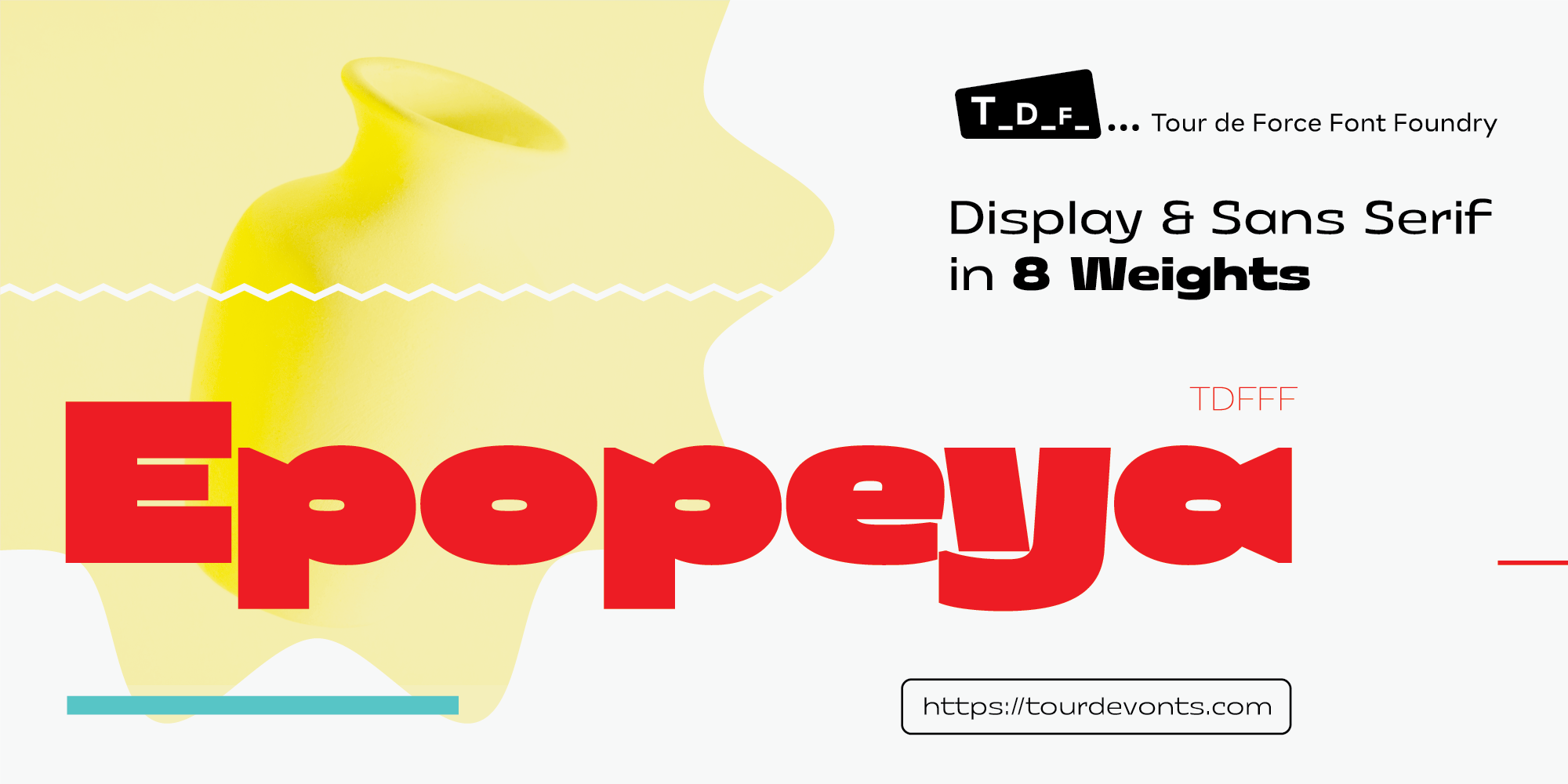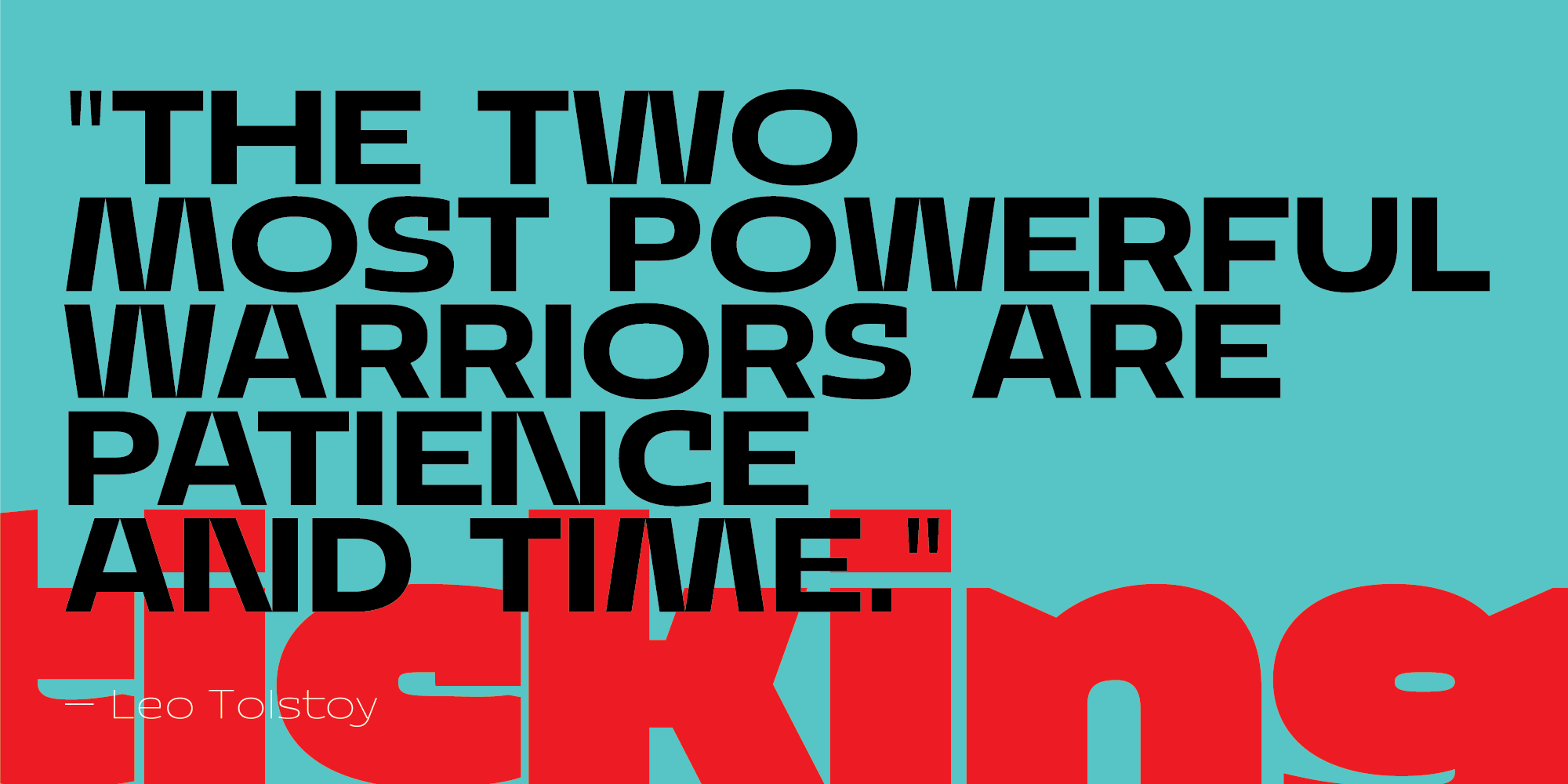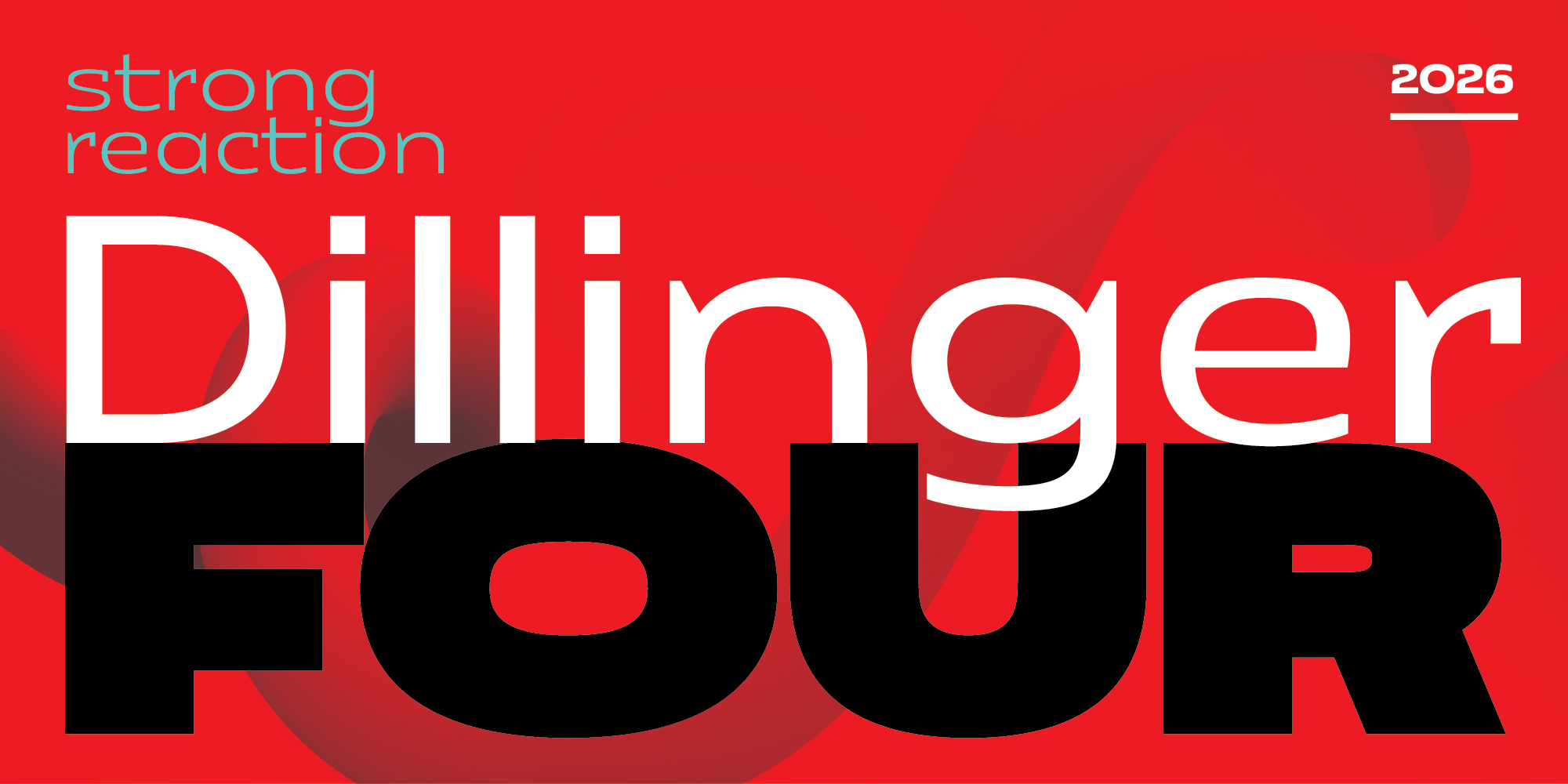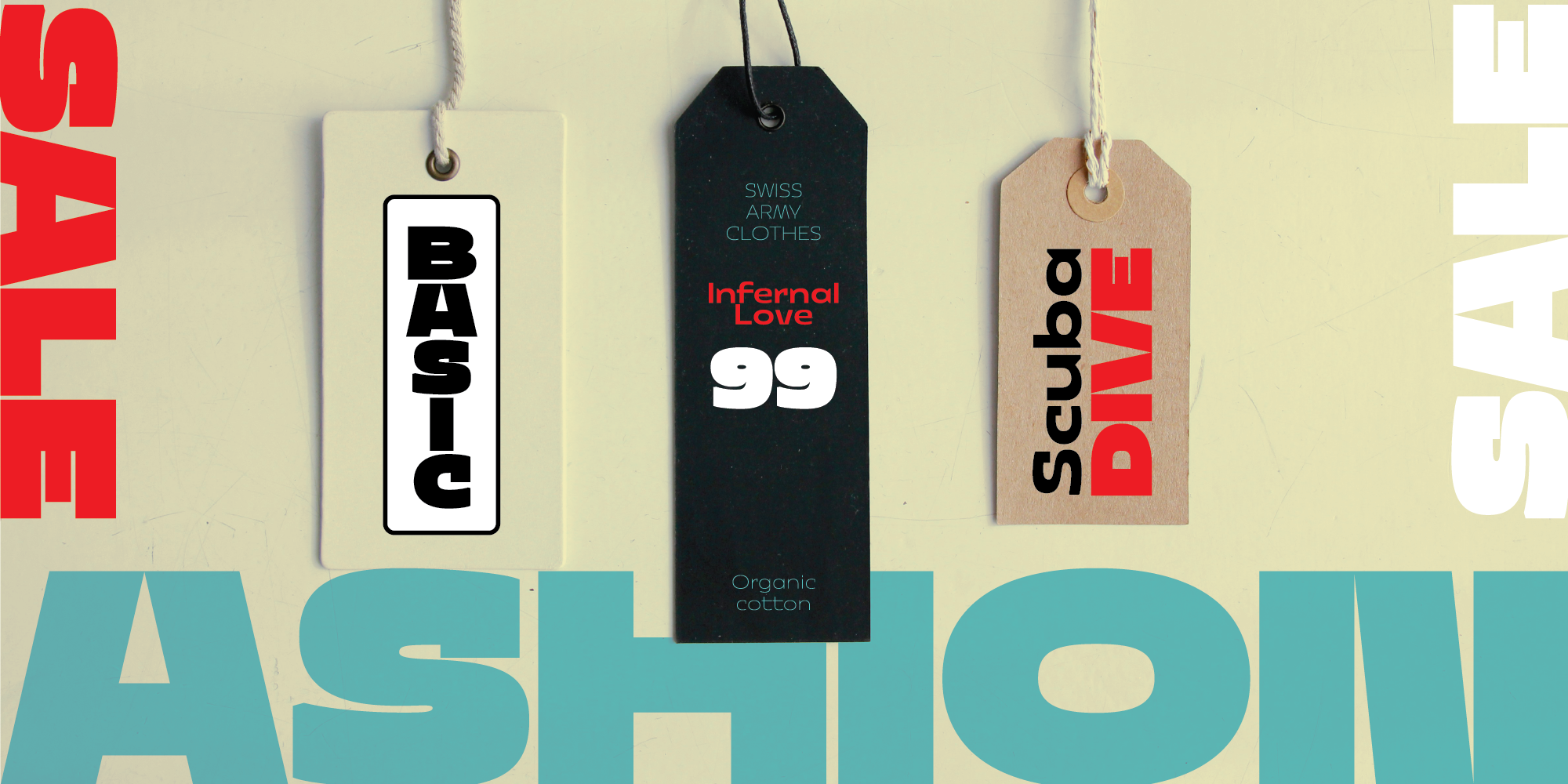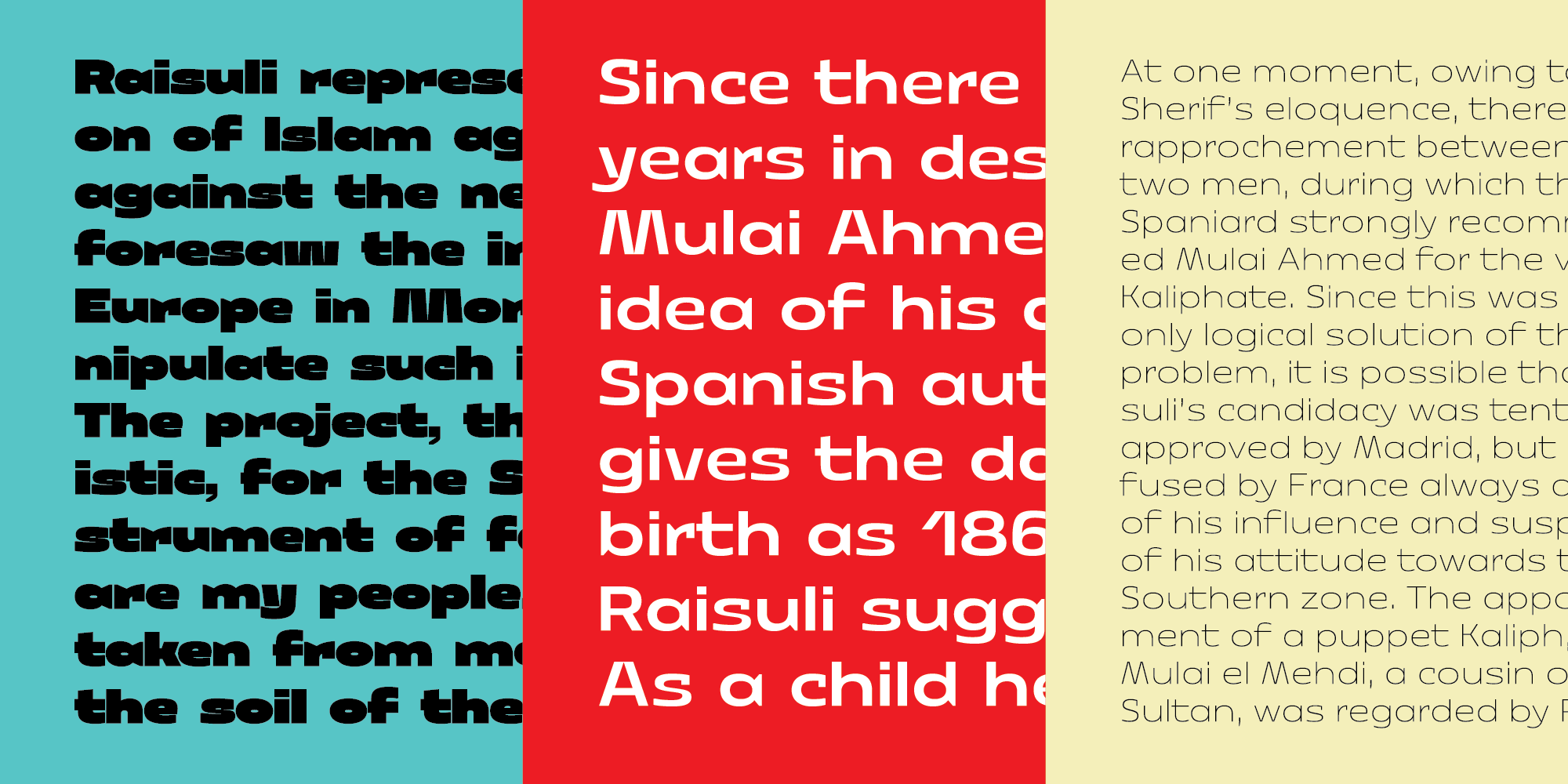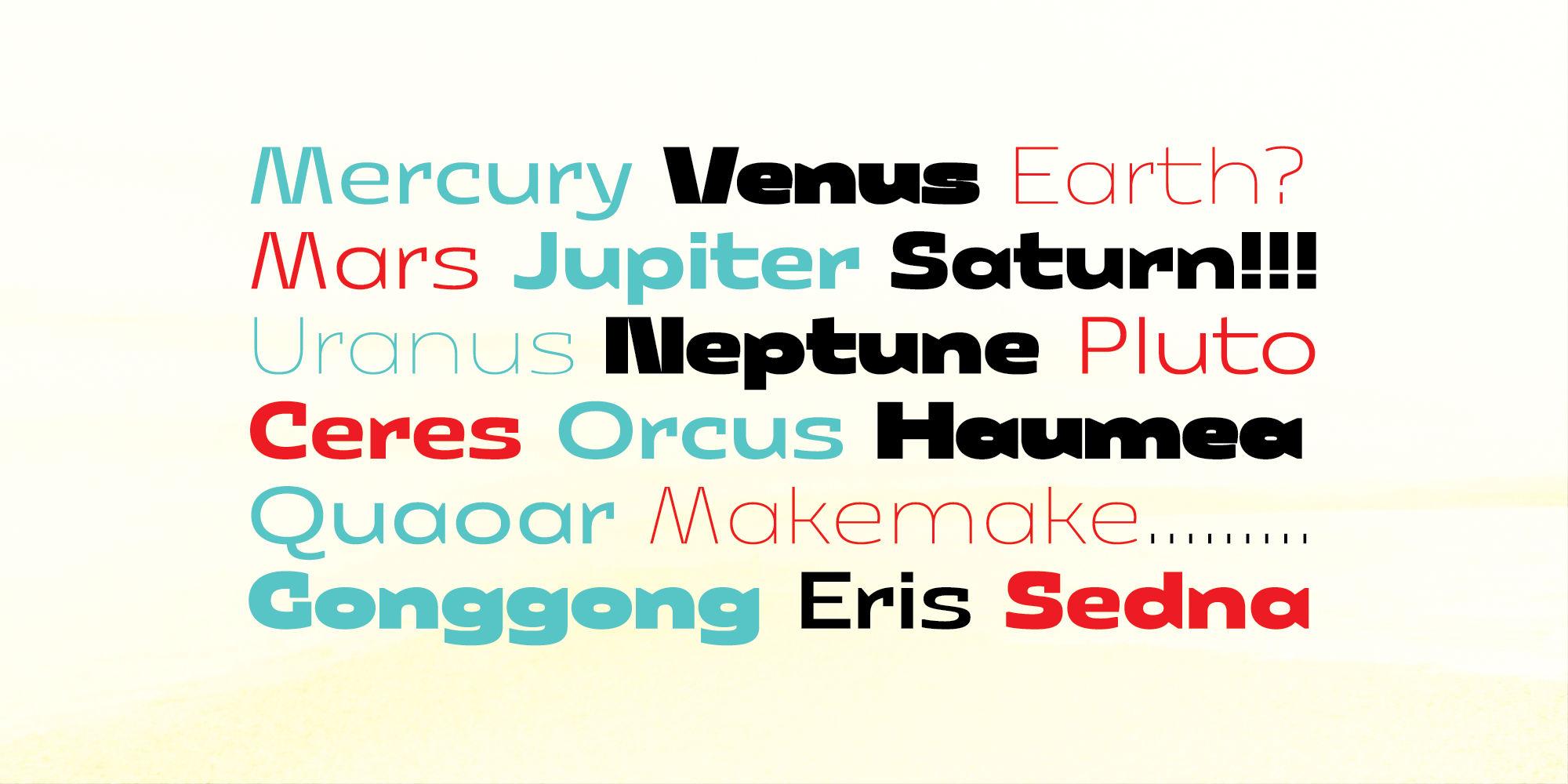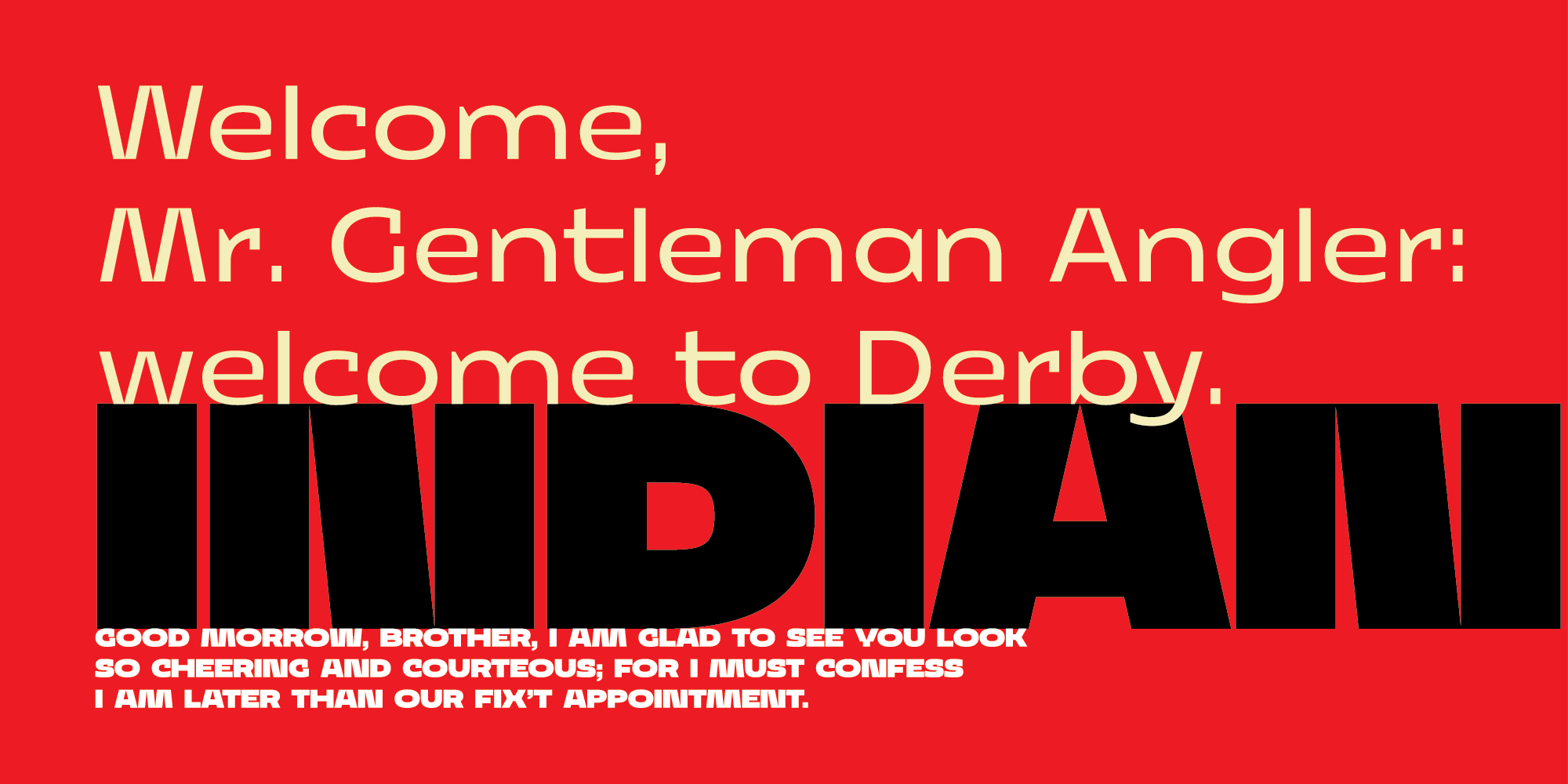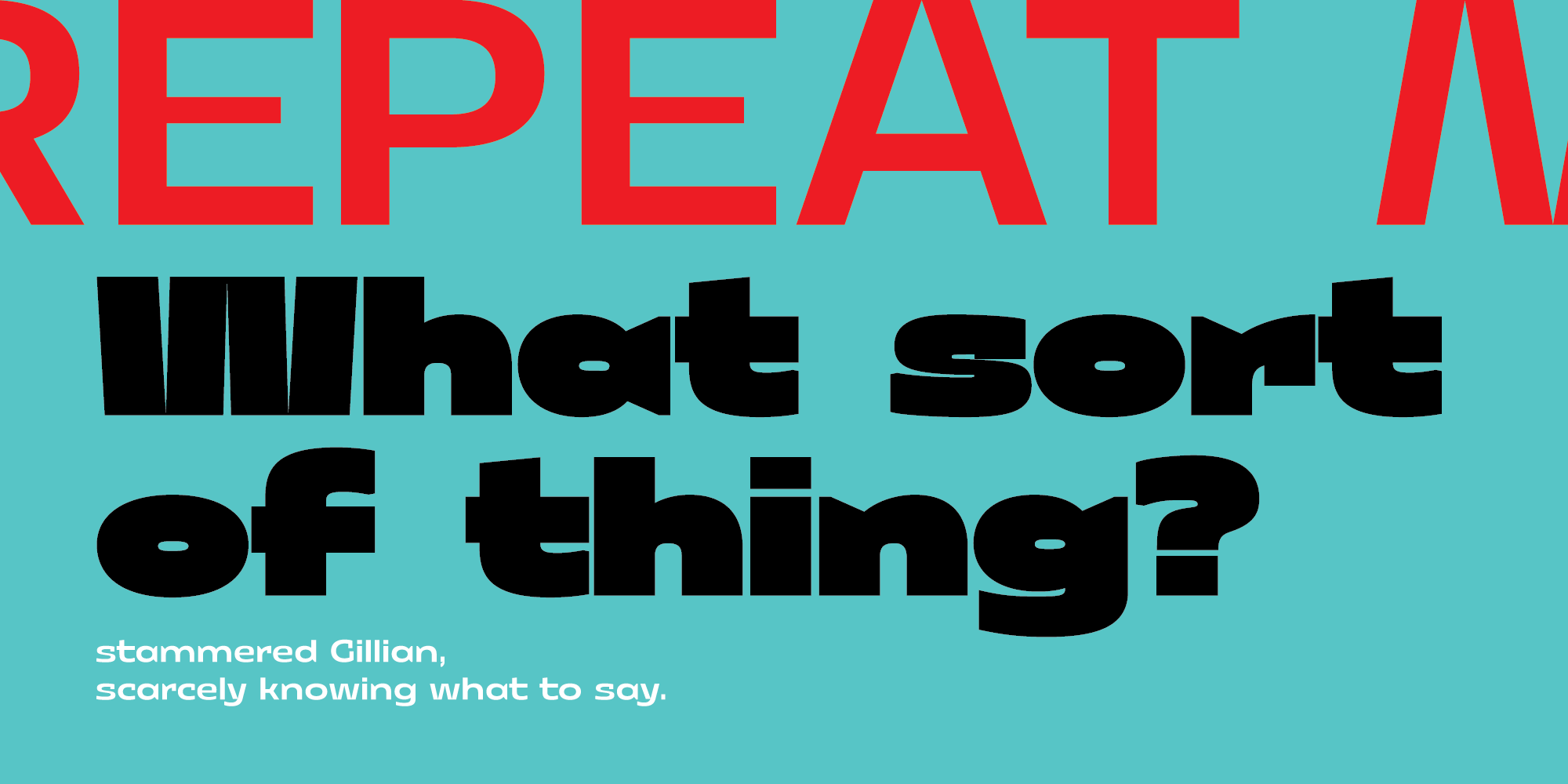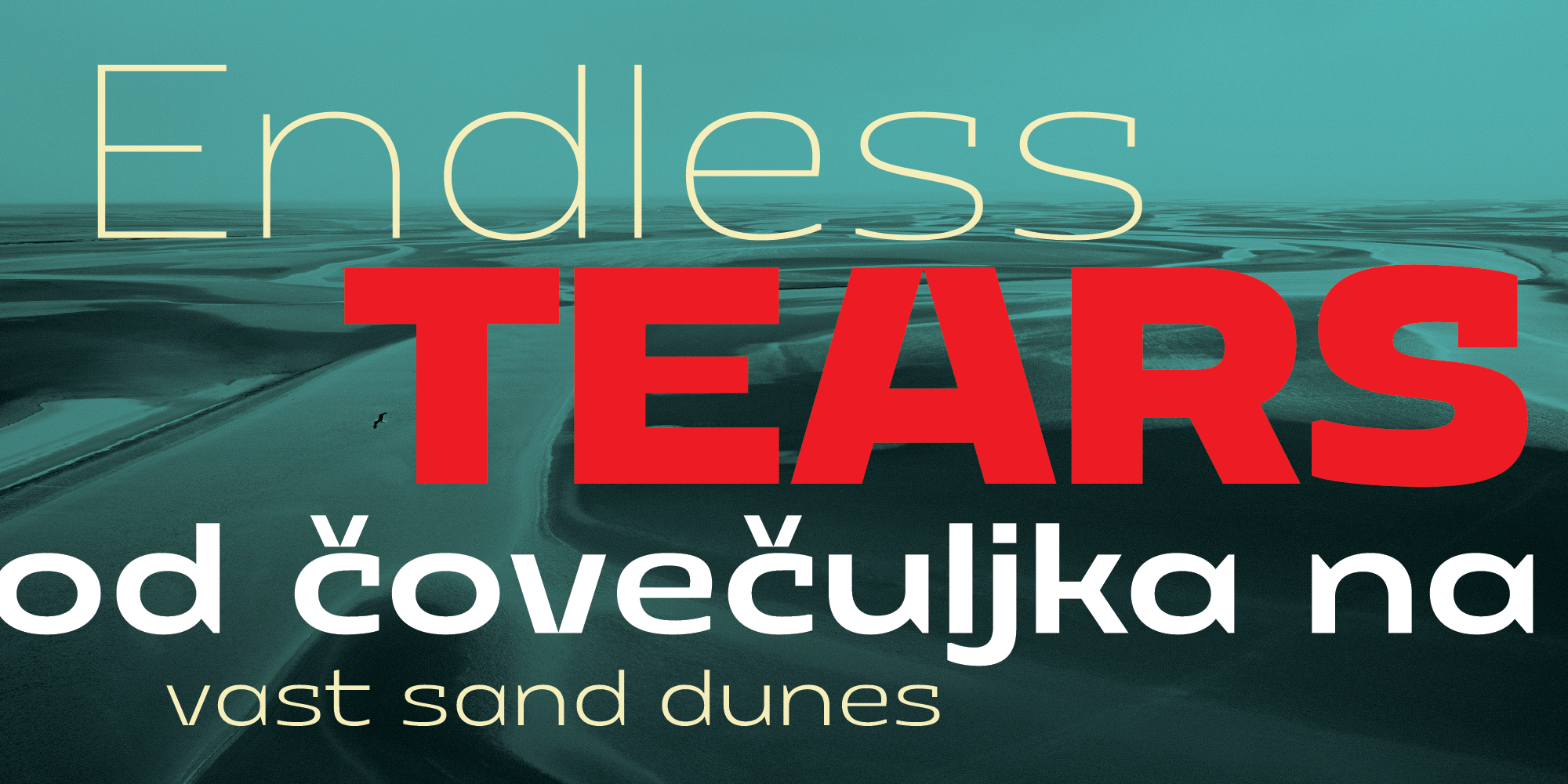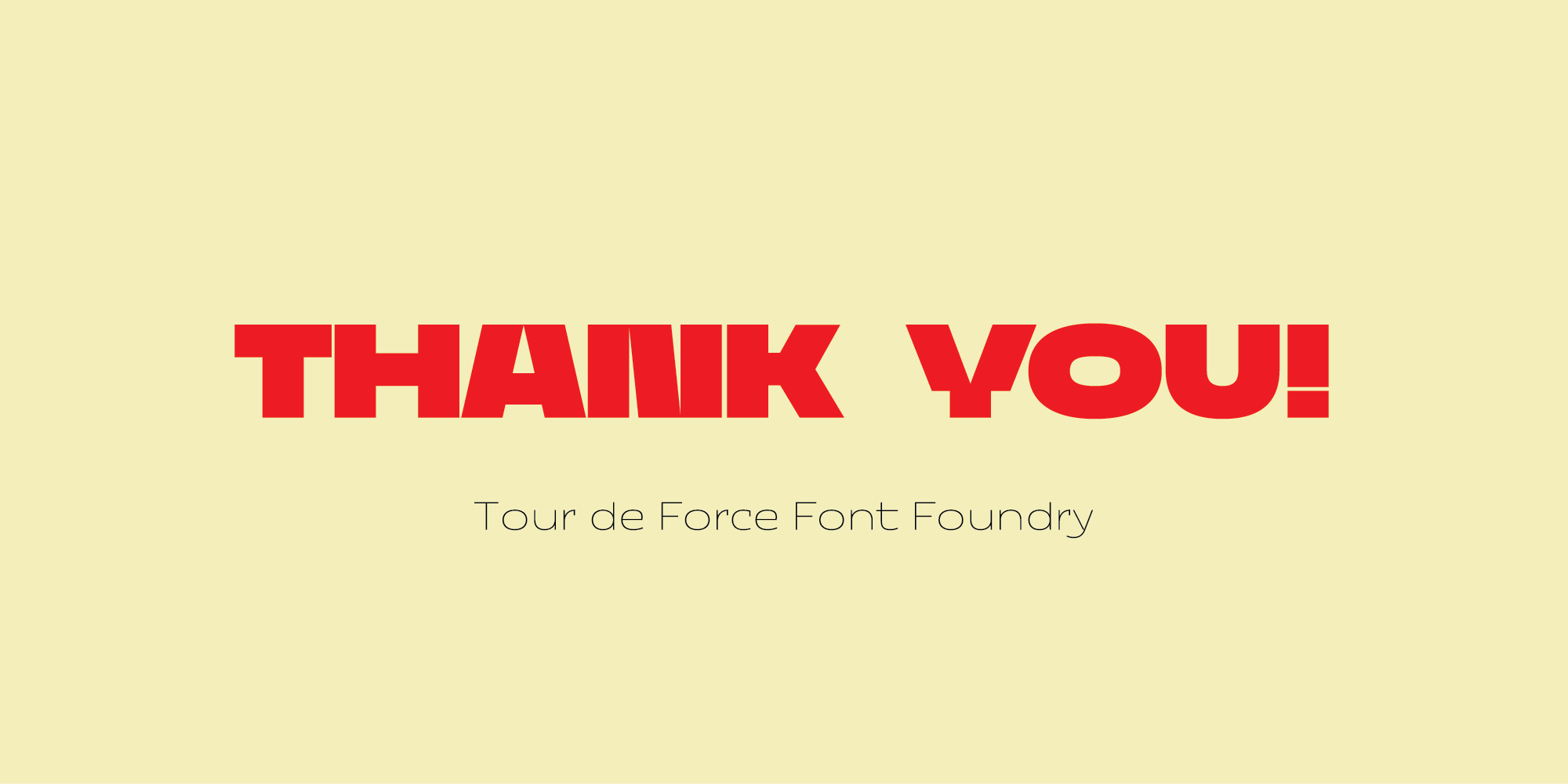
Epopeya font family is mixture of sans serif and display categories that comes in 8 weights.
By its design, it's wide, compact, stable font family with a lot of unique characteristics. It relies on geometric sans basis which was further developed to make Epopeya distinct and still fully usable in all classic situations where you're required for sans serif font family.
Contains Extended Latin character set with Standard Ligatures as OpenType features.